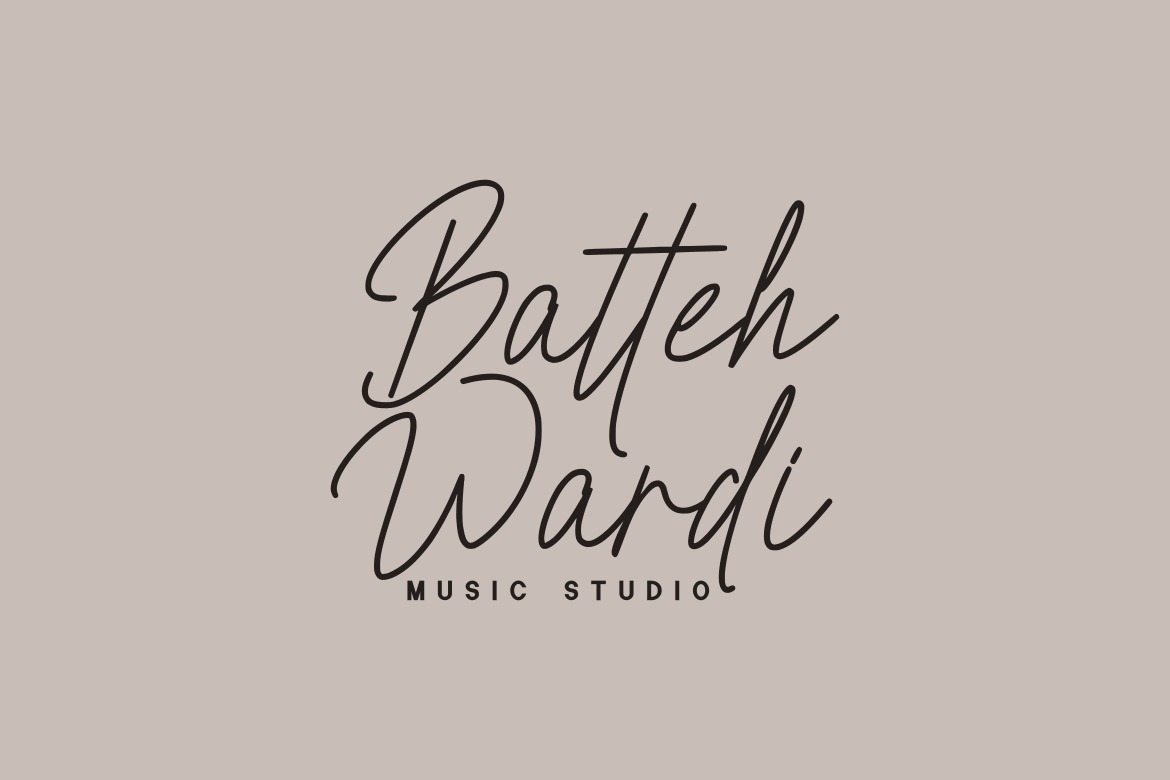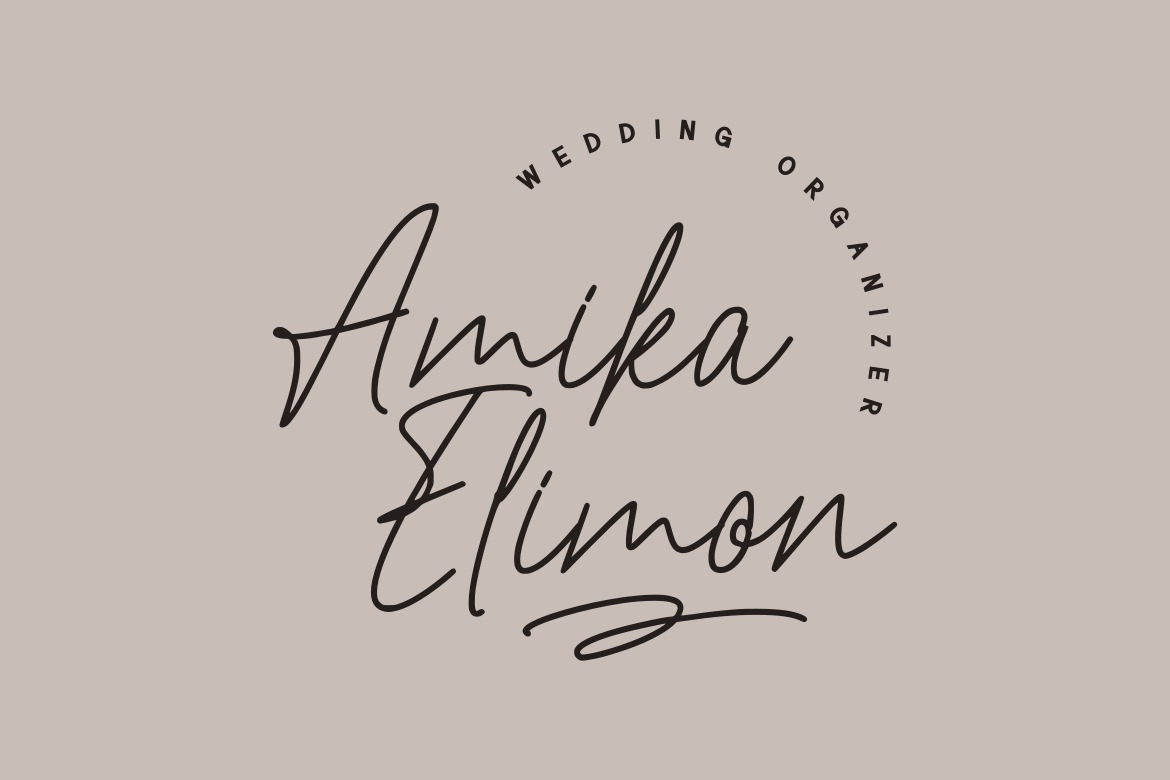
Restiny Sallmi Handwritten Font
It’s an unique fancy signature script typeface manufactured by GFRcreative. This font is perfect for any design project that requires script monoline fonts. Bingkisan Font is perfect for many different project such as logos & branding, invitation, wedding designs, social media posts, advertisements, product packaging, product designs, label, photography, watermark, special events or anything.